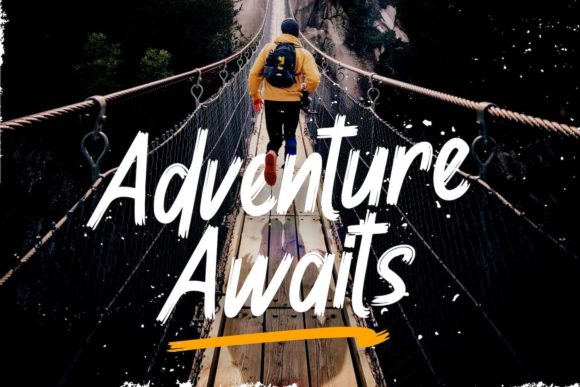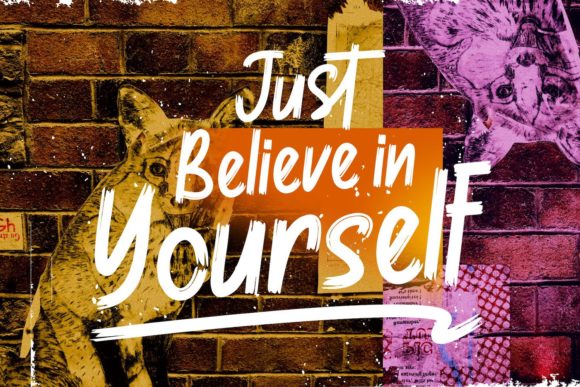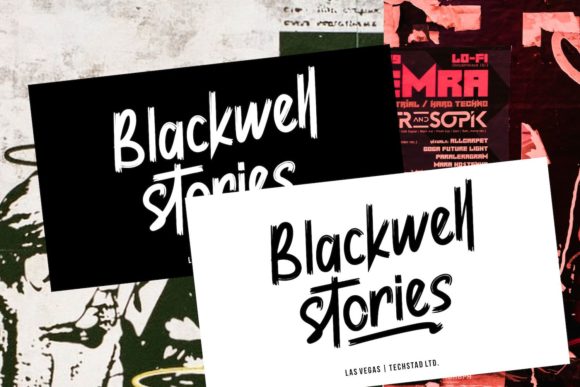
Introduction to Janyss Brush Font
Remember that moment when you’re working on a creative project and you need the perfect font to elevate your design? The search for the right font can be overwhelming, but what if I told you that you’ve just stumbled upon the perfect solution? The Janyss Brush Font is here to revolutionize your designs with its unique, natural brush style.
This high-quality design resource is perfect for any creative project, whether you’re working on a branding project, a digital illustration, or even a beautiful invitation. The Janyss Brush Font is PUA encoded, making it incredibly easy to access all of its glyphs and swashes. With a transparent background, you can seamlessly integrate it into your designs, giving you complete freedom to create stunning visuals.
As a designer, you understand the importance of having a versatile font that can adapt to any project. The Janyss Brush Font is a free download that will become your go-to resource for creating spectacular designs. Say goodbye to generic fonts and hello to a world of creative possibilities with this incredible font.
Key Features of Janyss Brush Font
- High-quality design resource ideal for creative projects, including invitations, posters, and social media graphics.
- Features a unique, hand-painted style with a transparent background, allowing for seamless integration into any design.
- Perfect for designers looking for a distinctive and creative font to elevate their designs.
Honest Review: Janyss Brush Font
As a designer, I’m always on the lookout for high-quality design resources to elevate my creative projects. The Janyss Brush Font is one such resource that caught my eye, and I’m excited to share my honest review.
- ✨ Unique, hand-drawn feel that adds a personal touch to any design
- ✨ High-quality, detailed font files that look great on both digital and print media
- ⚠️ Limited character set, which may not be suitable for longer texts or formal documents
- ⚠️ Some characters may not display well on certain font sizes or resolutions
Overall, I’m impressed with the Janyss Brush Font’s unique charm and versatility. While it may not be suitable for every design project, it’s an excellent choice for creative, high-end projects where a touch of personality is required. As a free download, it’s a valuable addition to any designer’s toolkit.
Tips for Getting the Most Out of Janyss Brush Font
Experiment with different font sizes and colors to add visual interest to your design. Use the Janyss Brush Font in combination with other design elements to create a unique and eye-catching creative project.
The Janyss Brush Font is ideal for creative projects that require a high-quality, artistic touch, such as wedding invitations, social media graphics, and branding materials.